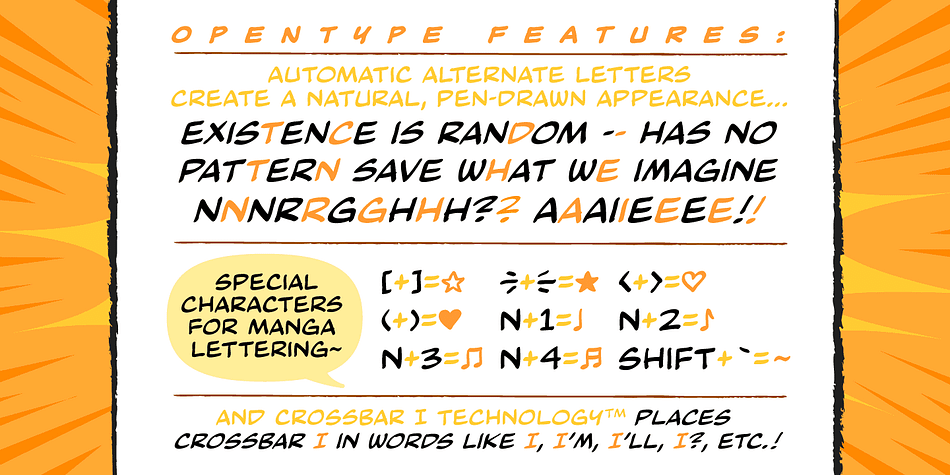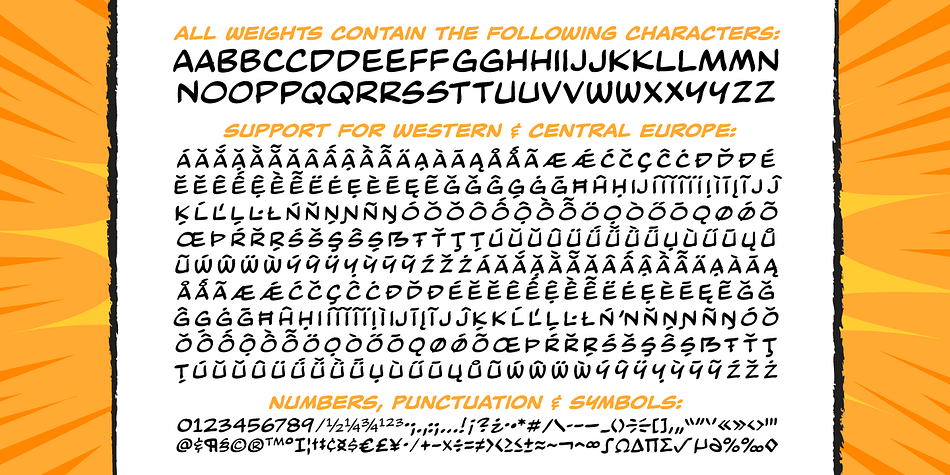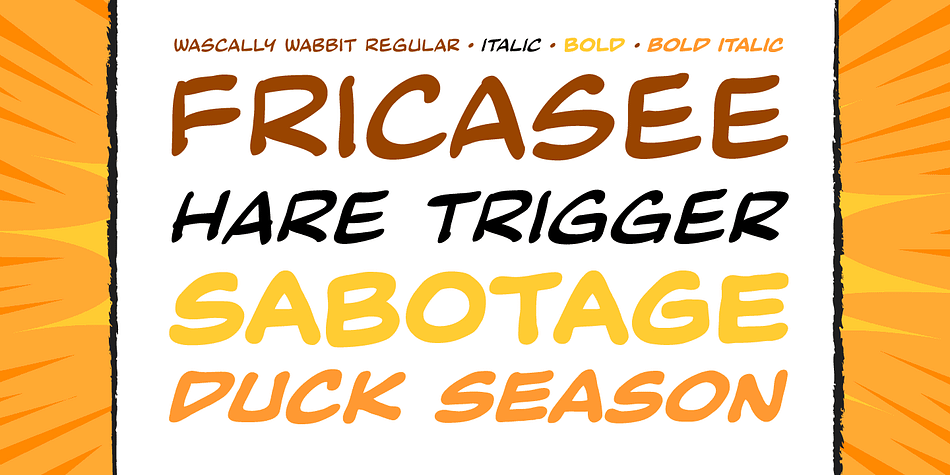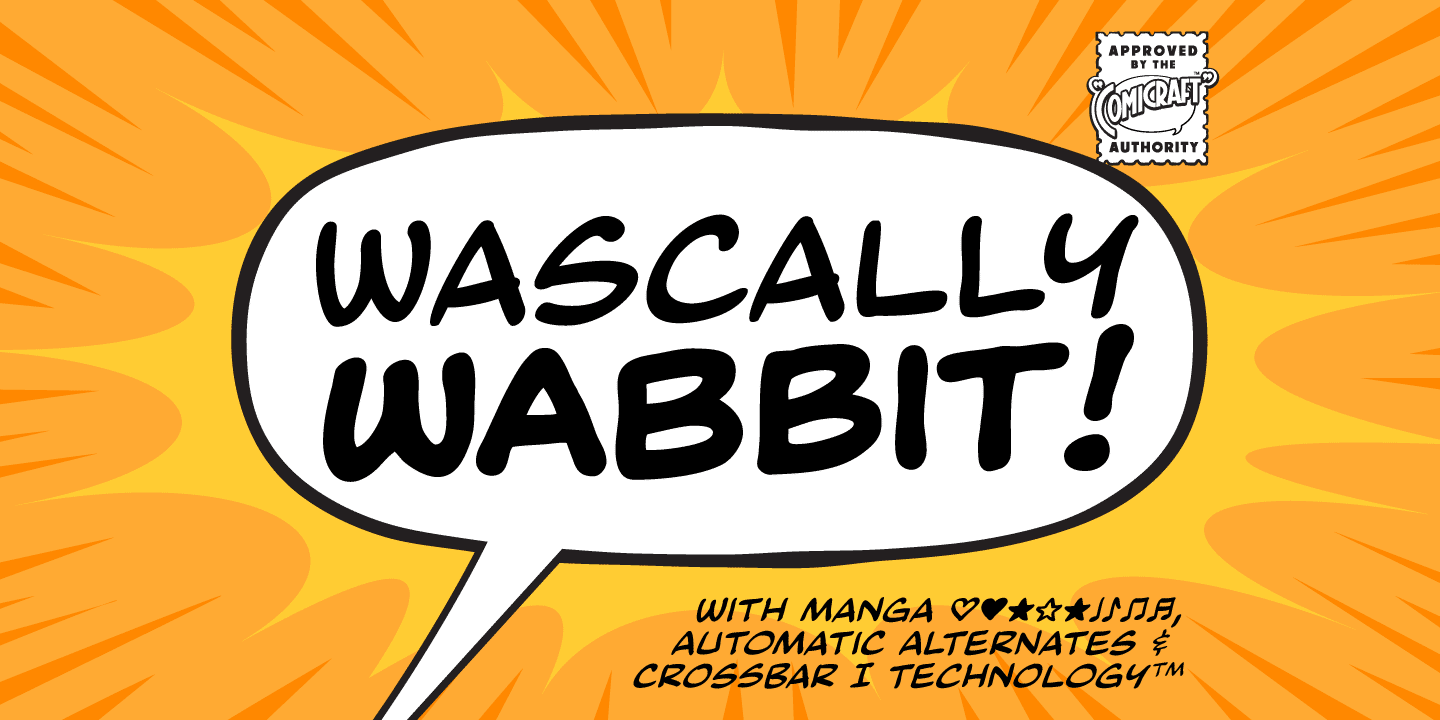
WASCALLY WABBIT
Designed by John Roshell, Wascally Wabbit is a brush display, comic and display sans font family. This typeface has four styles and was published by Comicraft.
This cunning, conniving, chattering font is devious, devilish and dashing! It’s a toon town tattler that will lend a flippant insouciant personality to your comic books and animated features. These handsome letterforms will nab you, jab you, grab you and may even stab you with their sly wily guile.
Our advice: Be Very Very Qwiet when tracking down this Wascally Wabbit.